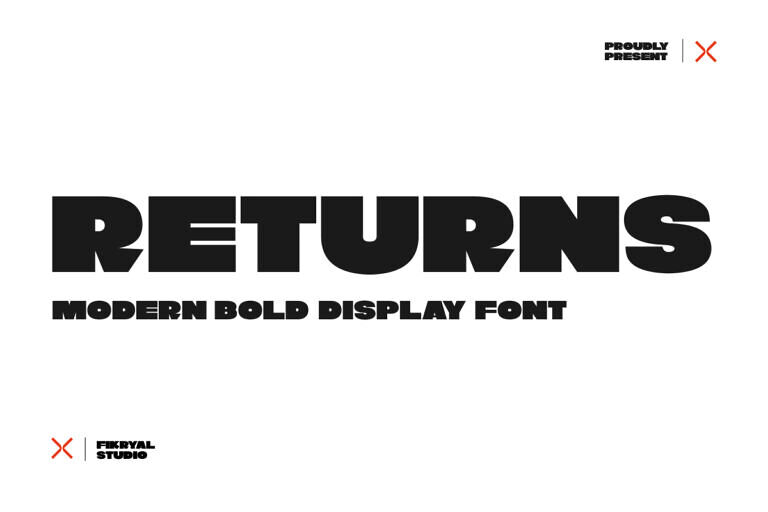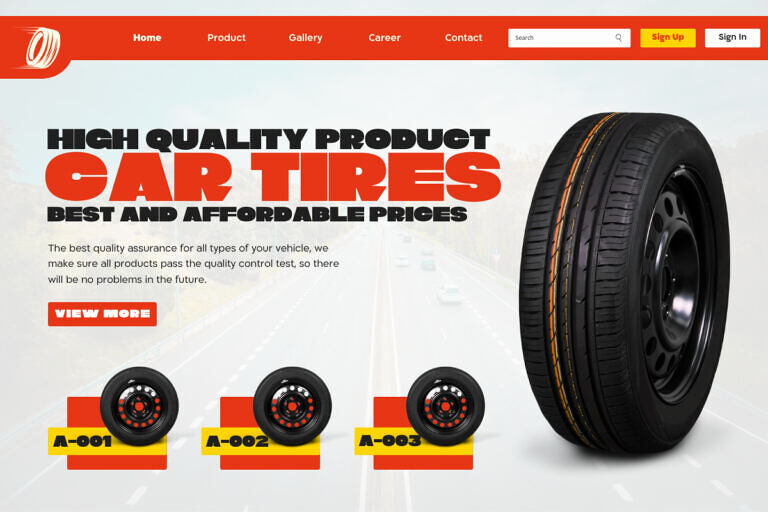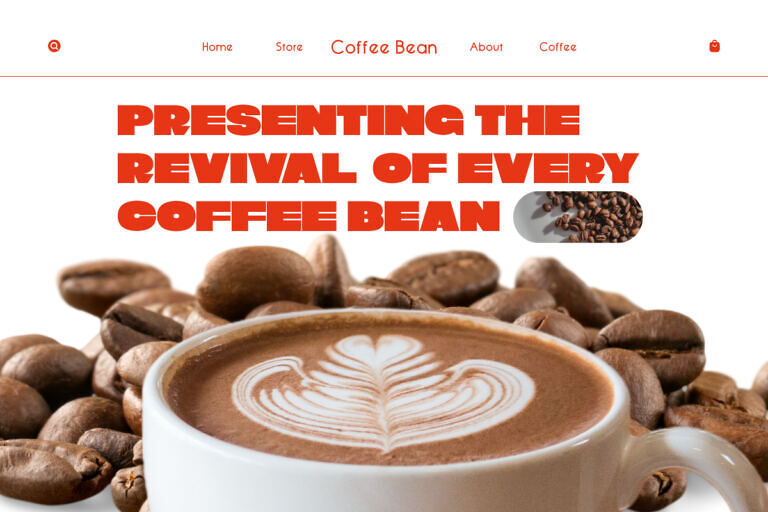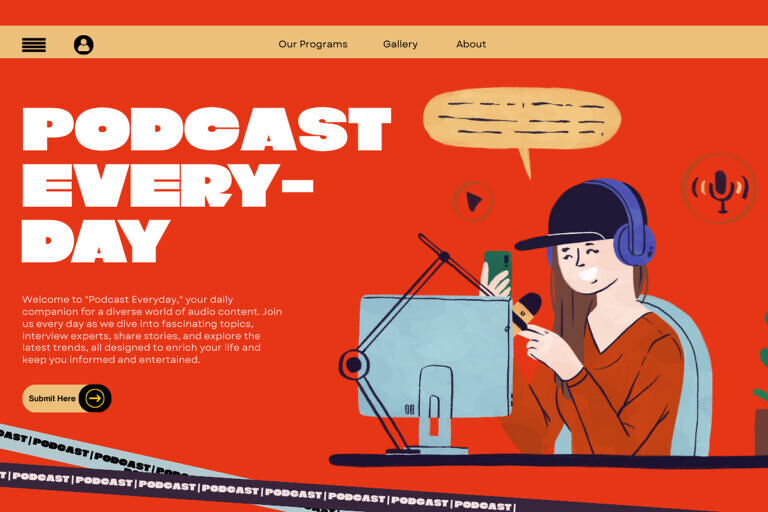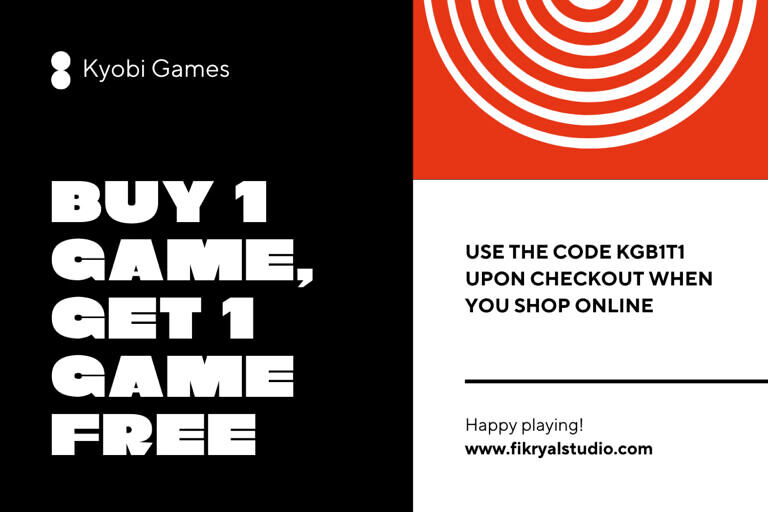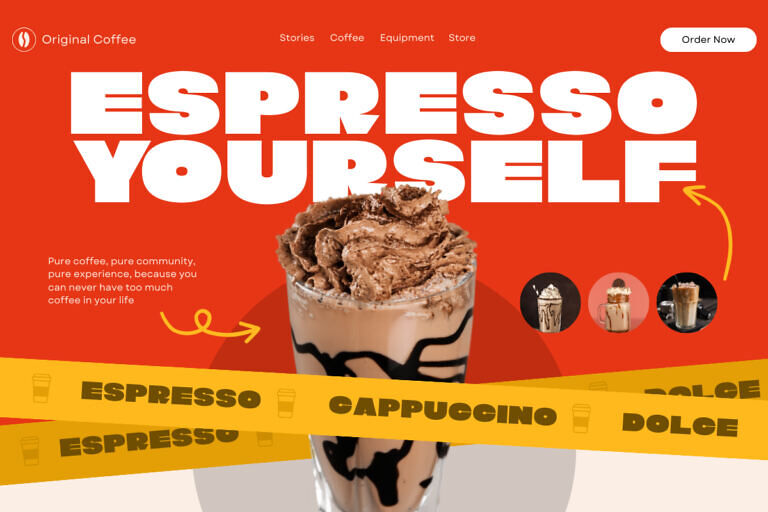
Return is a charming and strong display font with bold characters that stand out. Specially created with capital letters to give a firm and authoritative impression. Each letter in “Return” is sculpted with precision, featuring bold lines that clearly define its presence.
Its bold characteristics provide extraordinary visual power, making it ideal for titles that require a statement or striking appearance. Despite this, “Return” maintains its elegance with balanced proportions and a clean design.